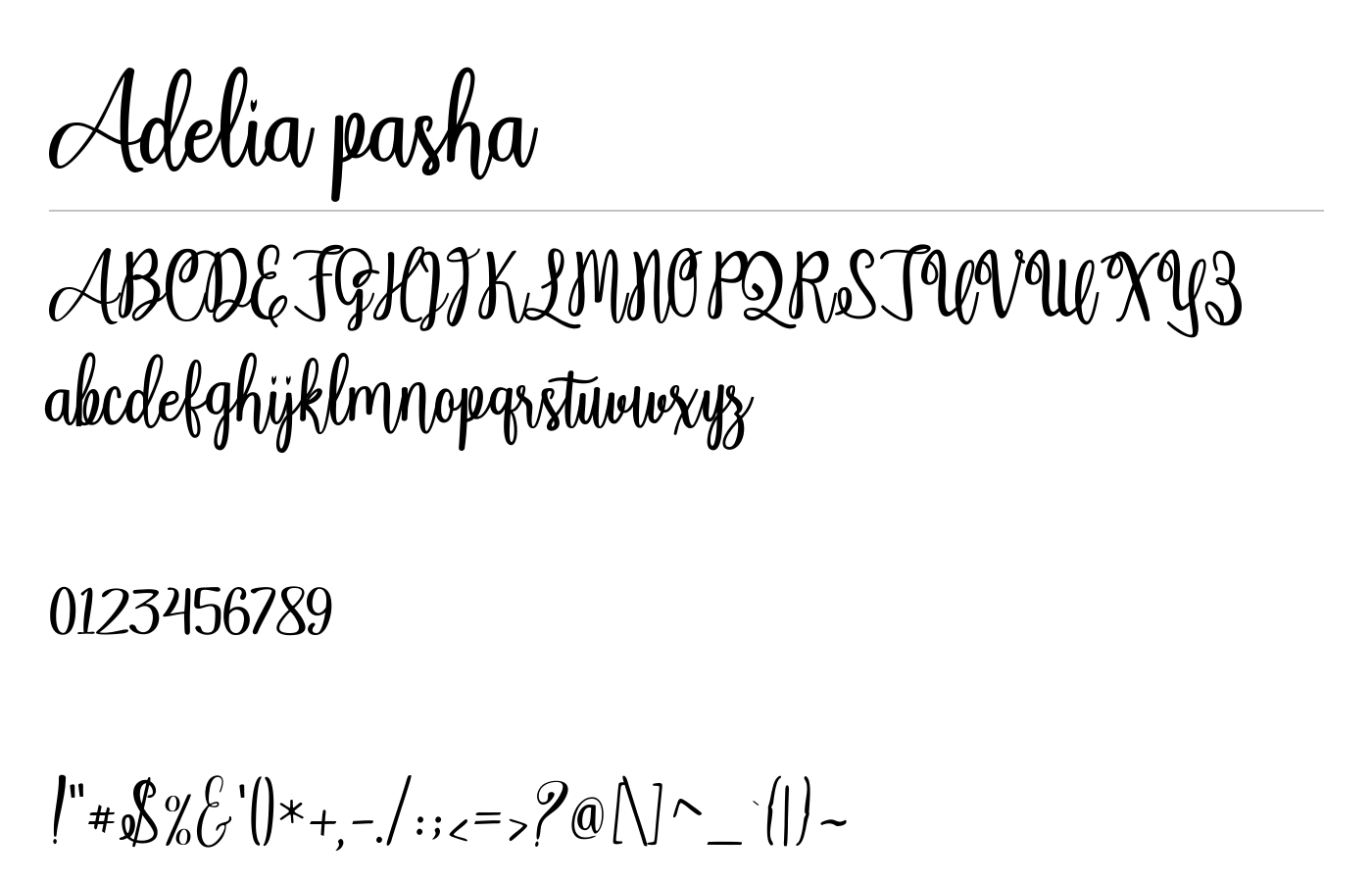
Adelia Pasha is a playful and elegant script font featuring flowing, connected letterforms with a distinct hand-drawn charm. Its moderately high x-height and stylish swashes give it a lively yet polished feel, making it ideal for creative branding, invitations, and feminine design projects where a personal and expressive touch is desired. This font stands out in headlines or logos, adding warmth and personality without sacrificing readability.
Adelia pasha Font
About Adelia pasha Font
| Designer | M abbas |